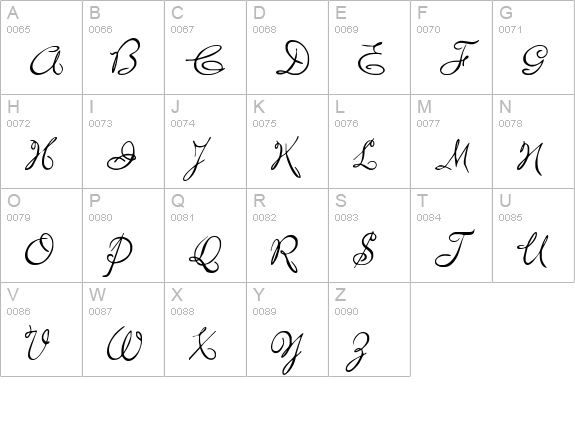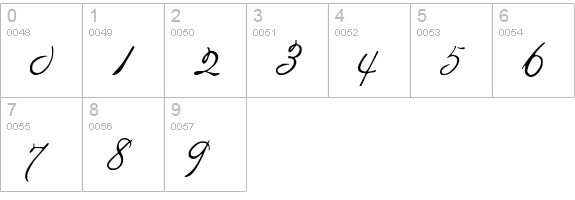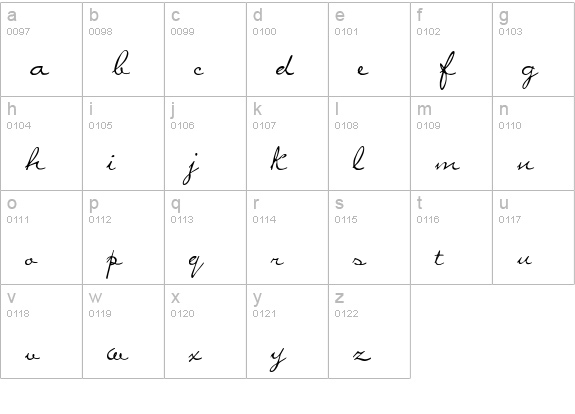
Miss Brooks font is a stunning and elegant typeface that exudes sophistication and charm. With its delicate curves and stylish flourishes, this font is perfect for adding a touch of class to any design project. Whether you're creating invitations, branding materials, or social media graphics, Miss Brooks font is sure to make a statement. And the best part? Miss Brooks font is completely free to download at FontsMarket.com. So you can elevate your designs without breaking the bank. Don't miss out on the opportunity to add this beautiful font to your collection today!